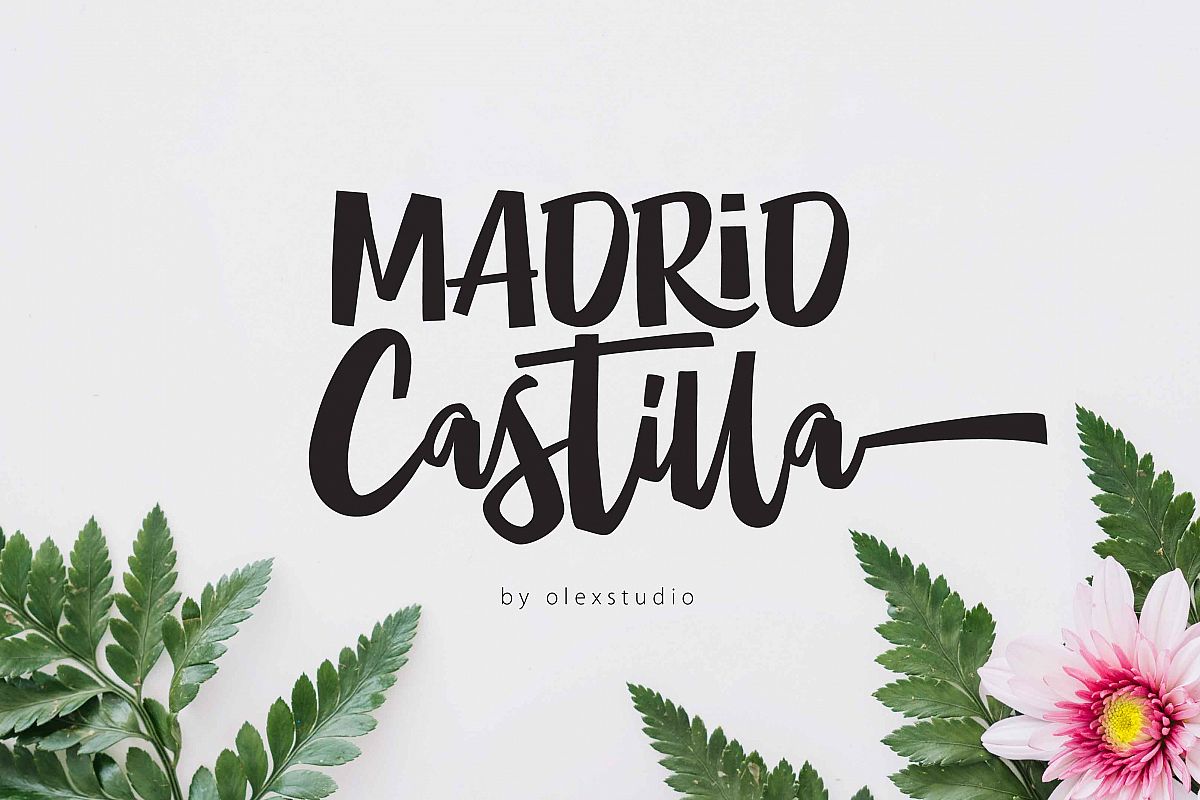
MADRID Castilla
"INTRODUCING"MADRID Castilla is a beautiful Modern clean handlettering font Typeface,
This Font will look gorgeous on all your designs, wedding invites, branding materials, logo's, t-shirt, poster, business cards, quotes and all project design other.
WHAT'S INCLUDEDMADRID Castilla contains standard characters, lowercase, Lowercase Alternates, uppercase, numbers, punctuation, ligatures and international glyphs.You will receive the OTF,TTF & WEBFONT files.